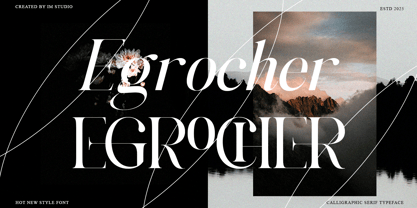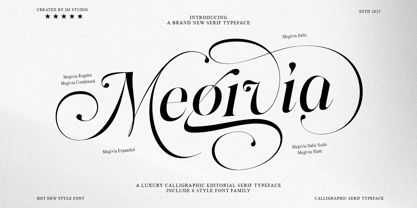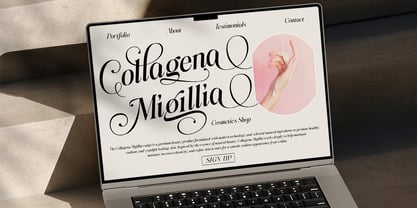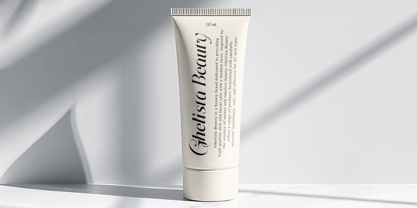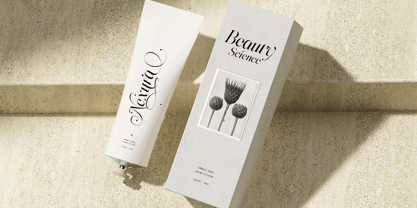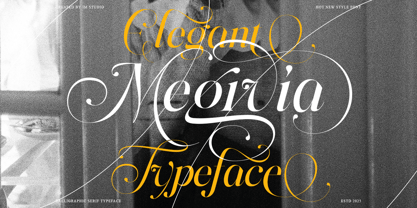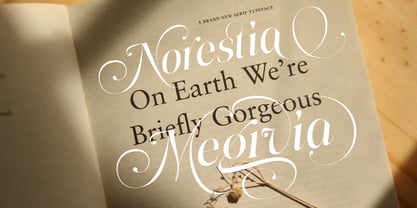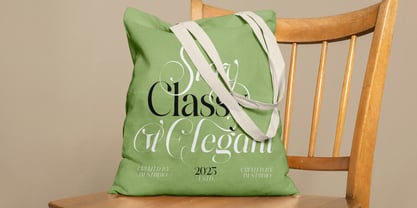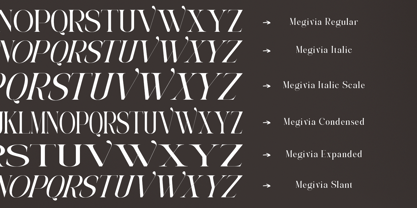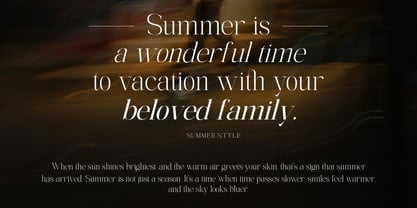
Megivia
by IM Studio
The Megivia Font Family was designed by Ikhsan Maulana and published by IM Studio. Megivia contains 6 styles and family package options. More about this family
Megivia – Calligraphic Serif Typeface with Italics & Alternates
Megivia is a refined calligraphic serif typeface that gracefully blends timeless elegance with modern sophistication. Designed with expressive strokes and delicate detailing, it offers a perfect harmony between romance and structure.
This versatile typeface comes in multiple styles — Regular, Italic, Expanded, Condensed, Italic Scale, and Slant — each crafted with sweeping calligraphic curves and carefully drawn alternates. With its rich set of ligatures and stylistic variations, Megivia gives you unlimited creative flexibility.
Ideal for editorial layouts, fashion packaging, premium branding, invitations, headlines, and logos, Megivia consistently delivers bold yet graceful results.
Complete with multilingual support, full punctuation, numerals, and extensive OpenType features, this typeface is an exceptional choice for designers who seek sophistication and impact in their visual identities.
Designers: Ikhsan Maulana
Current Foundry: IM Studio